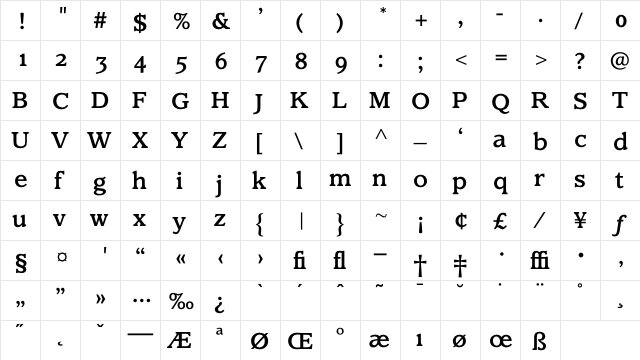
ClaremontMediumOS Regular
Design Context for ClaremontMediumOS Typeface
ClaremontMediumOS is a composed and adaptable typeface that performs quietly and consistently across a wide range of design contexts.